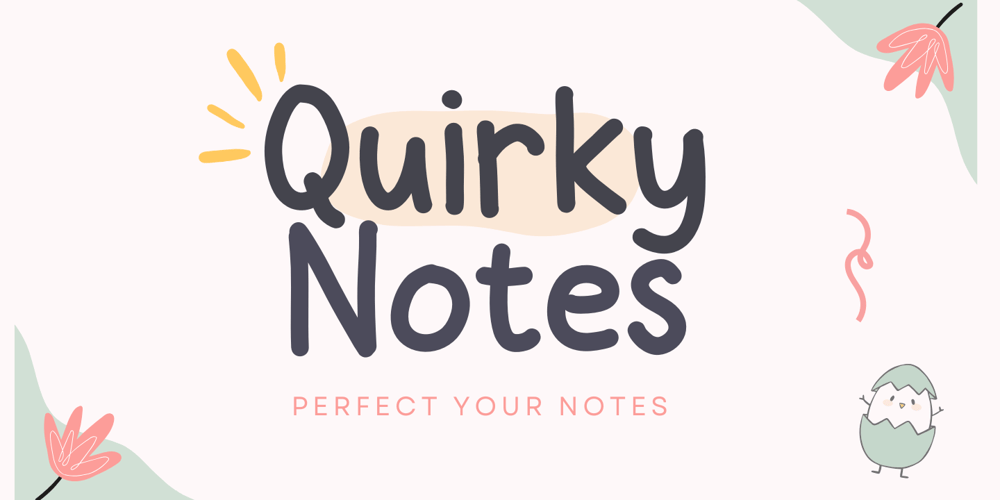
Quirky Notes
Quirky Notes font
Quirky Notes Font Family was designed by David Perkasya and published by Insan Perkasya. Quirky Notes contains 1 styles and family package options. Introducing the “Quirky Notes” font, which is a handwriting font made specifically for notes, but even though it is specifically for notes, this font is also very suitable for other things, such as quotes, lesson schedules, branding, logos and others.Quirky Notes font is made by handwriting so it produces natural strokes but is still beautiful to use.If you have any questions, don’t hesitate to contact us.Thank You